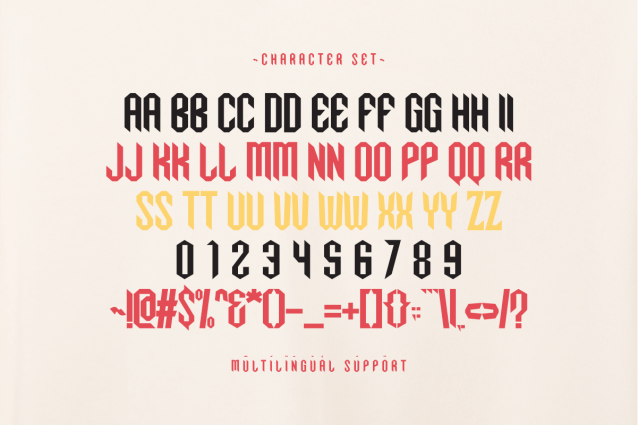
Abcd Font
Abcd Font is a modern quirky display font that makes a bold and distinctive statement in any creative project. Its unique geometric shapes and strong presence are perfect for capturing attention, making it an ideal choice for crafters, sublimation artists, and creators on platforms like Etsy and Cricut. This versatile font shines on a variety of items, including eye-catching t-shirt designs, personalized mugs, custom tumblers, stylish tote bags, intriguing wall art, innovative craft projects, unique stationery, and compelling branding materials. Its clean lines and contemporary feel lend themselves beautifully to designs that require both impact and a touch of modern flair. Abcd is fully compatible with popular design software such as Adobe Photoshop, Illustrator, and InDesign, as well as cutting machines like Cricut and Silhouette, ensuring seamless integration into your workflow. It includes a complete set of uppercase letters, numbers, and essential punctuation, providing everything you need to create striking and memorable designs for your merchandise and personal projects.